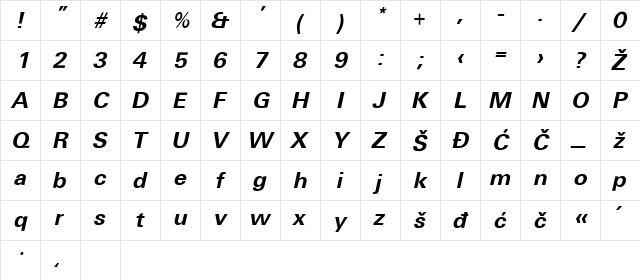
Universans650_PP Bold
Design Context for Universans650_PP Typeface
Universans650_PP is a composed and adaptable typeface that performs quietly and consistently across a wide range of design contexts. Its bold stroke weight gives it real presence on the page.